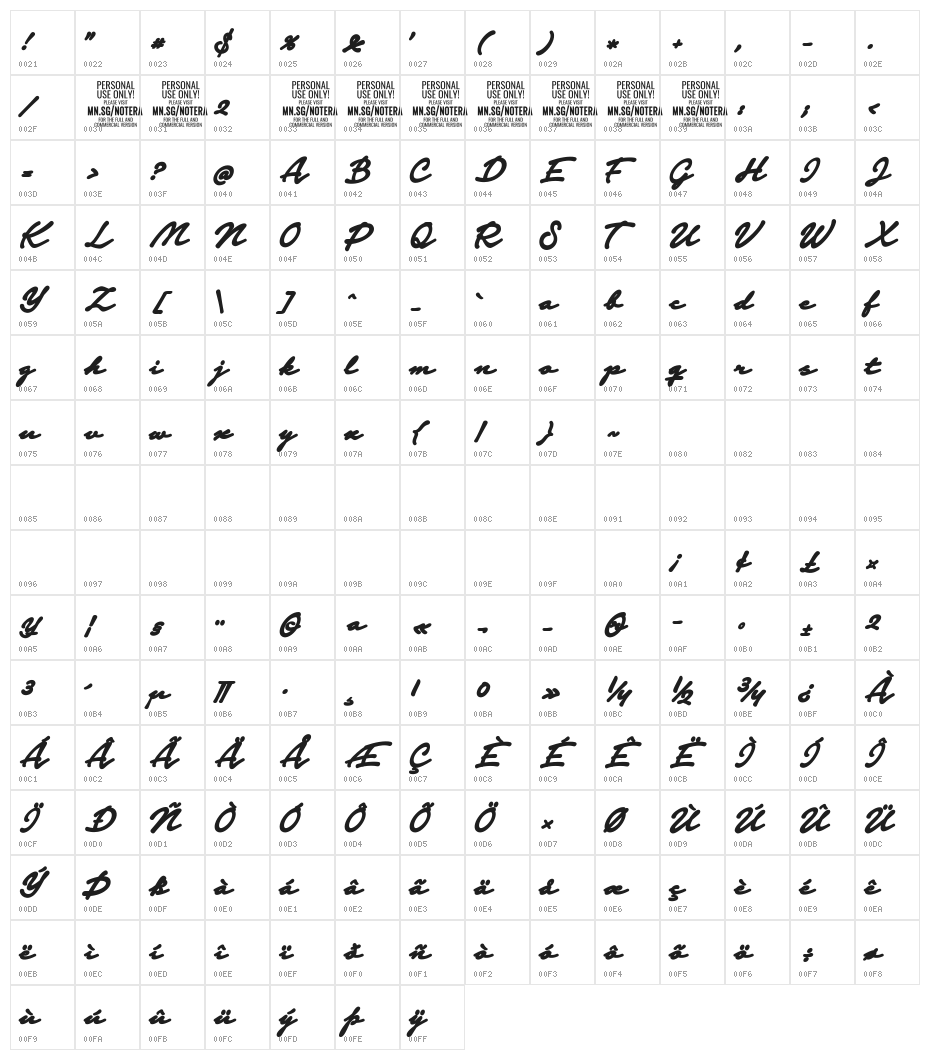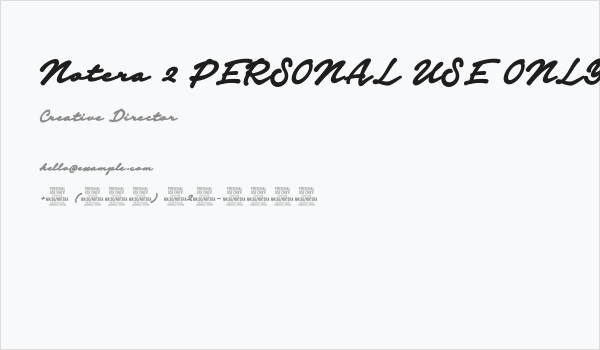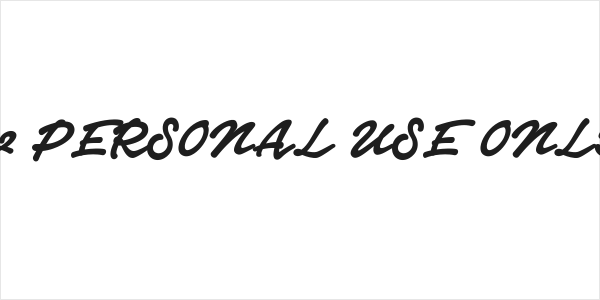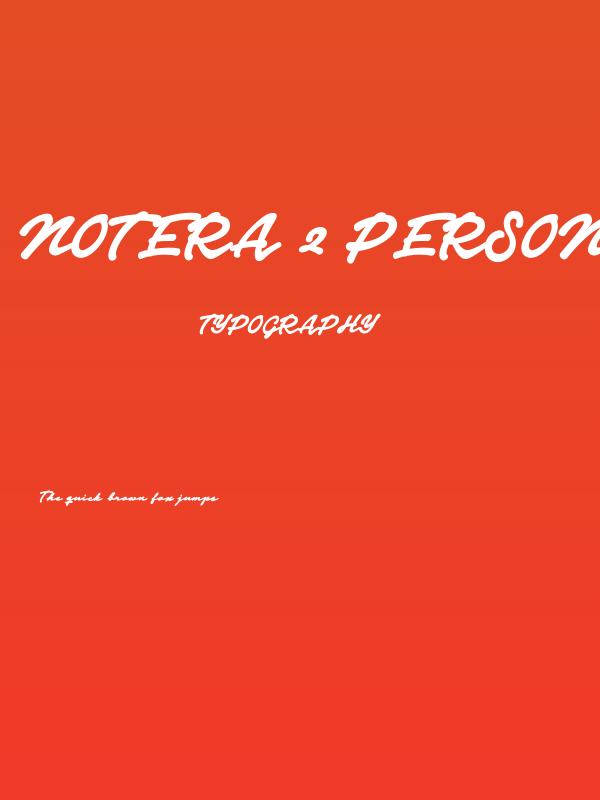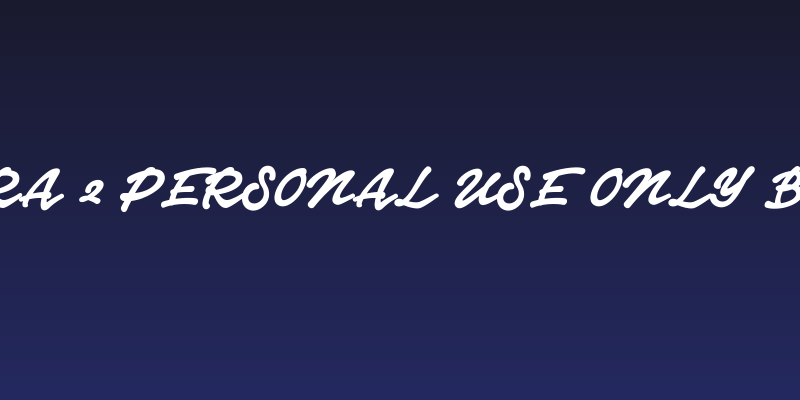
Notera 2 PERSONAL USE ONLY Black Font
Notera 2 PERSONAL USE ONLY Black Description
This font features a bold, cursive style with a flowing, handwritten appearance. The characters are connected, giving it a seamless and elegant look. The uppercase letters are slightly larger and more pronounced, while the lowercase letters maintain a consistent flow. The numbers and special characters follow the same cursive style, ensuring uniformity across all characters. The font's boldness makes it stand out, while the cursive design adds a touch of sophistication and personal flair.
| Proposed Projects | Ideal for invitations, greeting cards, branding, and logo design where a personal and elegant touch is desired. |